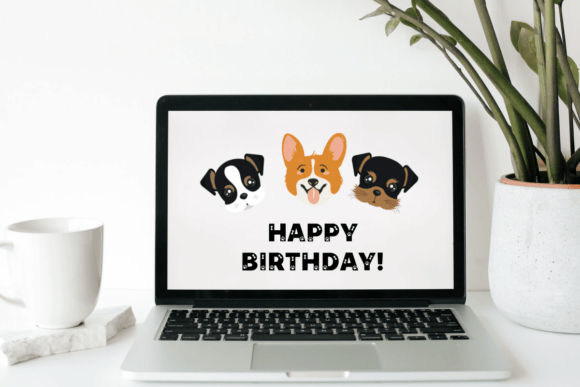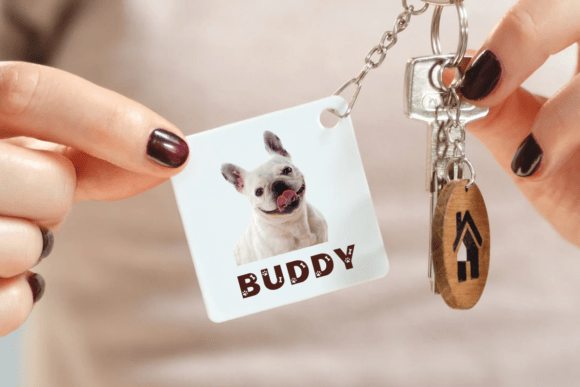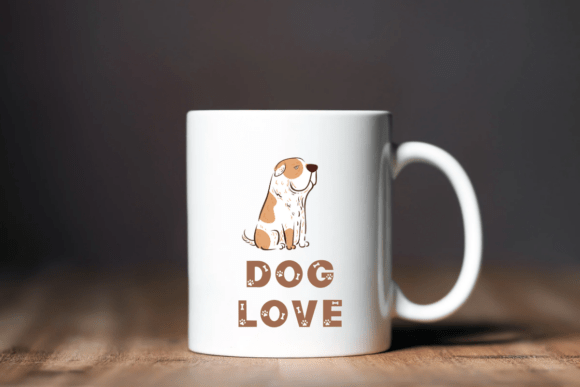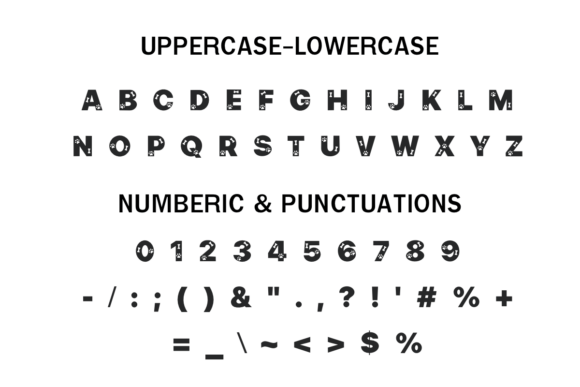
The Paw-fect Font: A Deep Dive into Dog Font
I still remember the design project that led me to discover Dog Font. I was working on a logo for a pet grooming business, and I needed a font that was playful, yet professional. After hours of scouring font websites, I stumbled upon Dog Font, and it instantly stole my heart. The adorable paw prints and bones integrated into bold letterforms were exactly what I needed to give the logo a tail-wagging touch of charm.
So, what makes Dog Font so special? Let’s dive into the good stuff and a few quirks I’ve discovered.
- ✨ Adorable paw print and bone designs integrated into bold letterforms
- ✅ Perfect for pet-related logos, children’s designs, signage, and more
- 🎉 Fun and playful vibe that’s sure to bring a smile to anyone’s face
- 💻 Highly versatile and can be used for both digital and print projects
While Dog Font is an amazing decorative typeface, there are a few things to keep in mind:
- ⚠️ May not be suitable for body text or long-form writing due to its bold and playful nature
- 🤔 Limited to uppercase letters, but the font does include stylistic alternates and glyphs
While Dog Font is purr-fect for many design projects, you may want to explore other options. Here are a few similar fonts and their personalities:
- Pawp: A fun, handwritten font with a pet theme. Use for children’s designs, pet logos, and playful signage.
- Furry Friends: A whimsical font featuring adorable animal illustrations. Perfect for kids’ party invitations, pet-related designs, and social media graphics.
- Petrock: A bold, rock-inspired font with a pet twist. Use for pet store logos, music posters, and edgy designs.
- Snugglebug: A sweet, cursive font with a playful vibe. Ideal for baby shower invitations, pet-themed stationery, and children’s books.
The Designer Inspiration Behind Dog Font
According to its creator, Dog Font was inspired by the joy and companionship that pets bring to our lives. The designer, a self-proclaimed animal lover, wanted to create a font that captured the playful and affectionate nature of our furry friends.
Q: Is Dog Font suitable for body text?
A: While Dog Font is an amazing decorative typeface, it’s not ideal for body text or long-form writing. Its bold and playful nature makes it better suited for headings, titles, and short text.
Q: Does Dog Font include OpenType features?
A: Yes, Dog Font includes OpenType features, glyphs, and stylistic alternates. You can access these features in compatible design software like Adobe Photoshop and Illustrator.